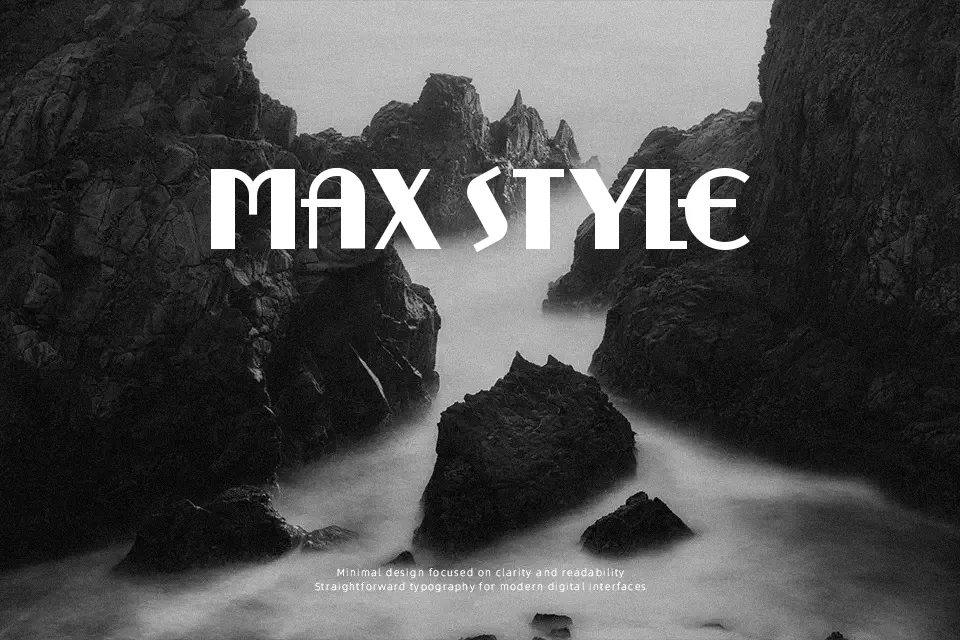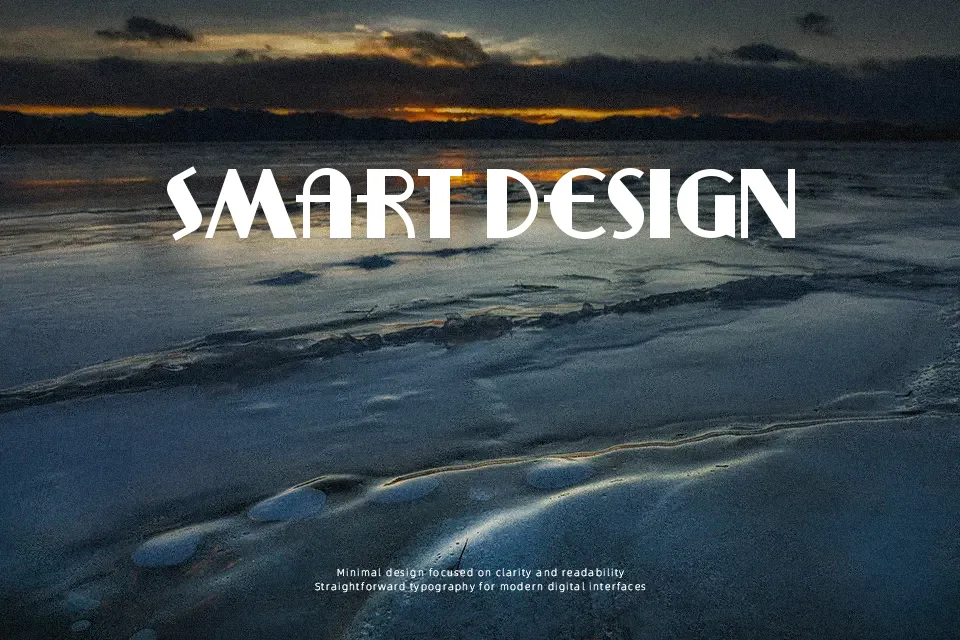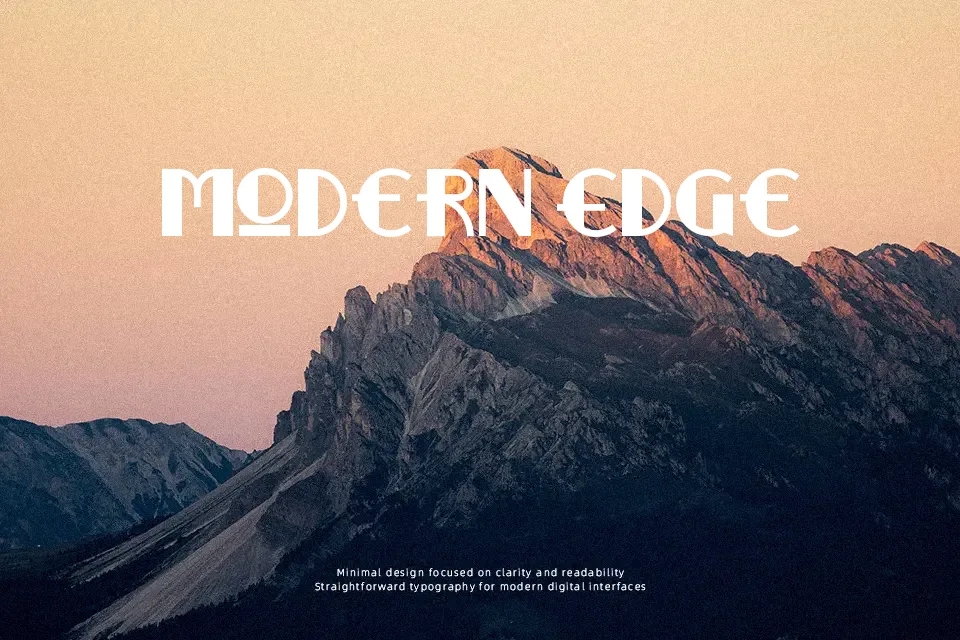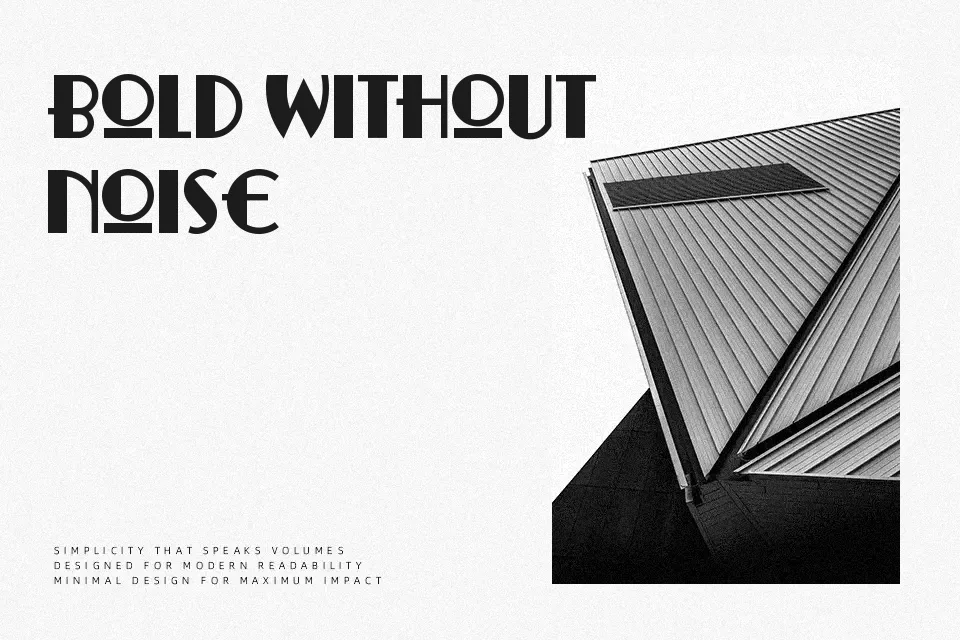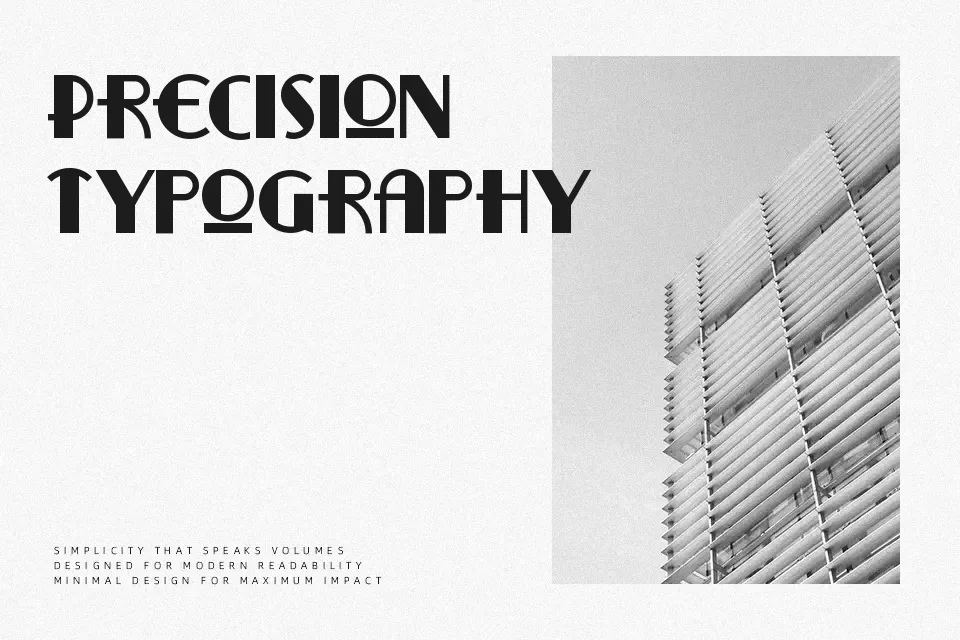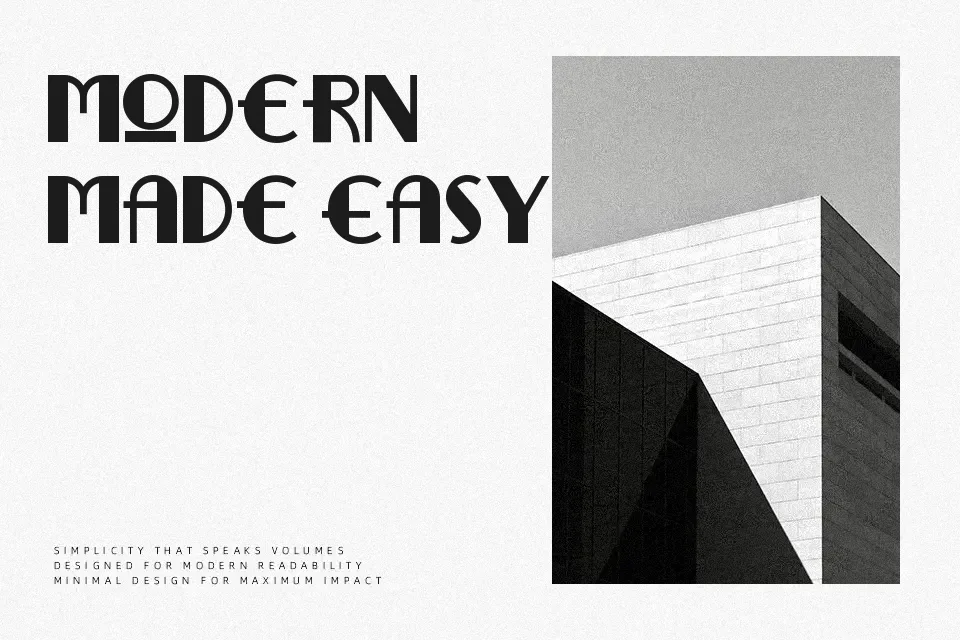
Ritzy Remix Font
Ritzy Remix Font presents a bold, geometric sans-serif structure heavily influenced by retro aesthetics. The letterforms display consistent, thick strokes combined with striking vintage proportions, featuring high and low crossbars on specific capitals. This typographic design relies on spacious, circular curves contrasting with tightly condensed vertical characters to establish a rhythmic visual flow. The spacing helps maintain clarity in larger headlines, allowing the distinct architectural shapes to stand out immediately. However, these same stylized proportions reduce continuous reading comfort in dense editorial layouts. The typeface performs exceptionally well in large-scale display environments, where its aesthetic charm shines without compromising structural integrity.
retro product packaging
apparel graphics
website hero headlines
spreadsheet data
Perfect for branding, headline, and packaging, with a bold and display style.